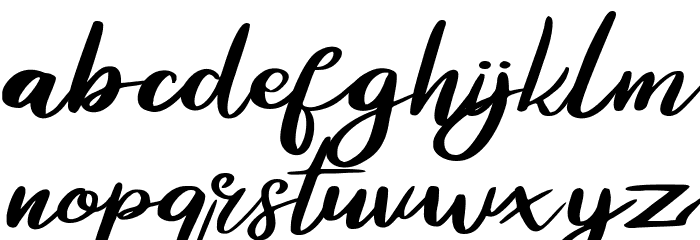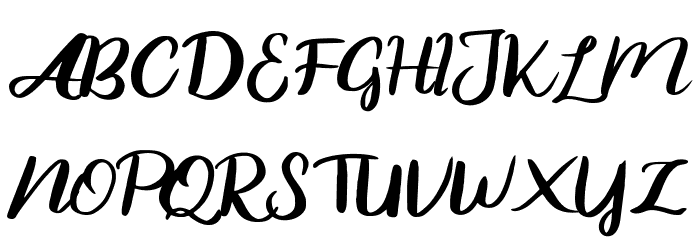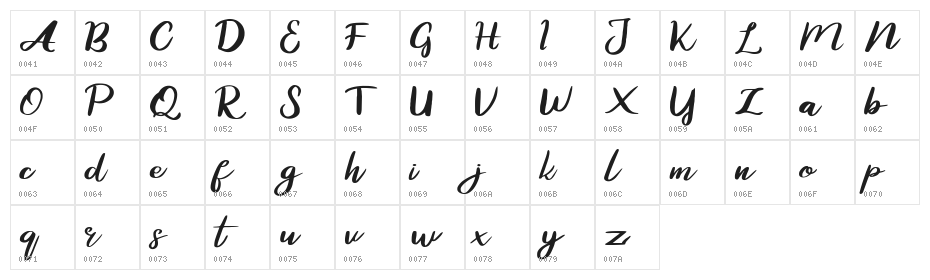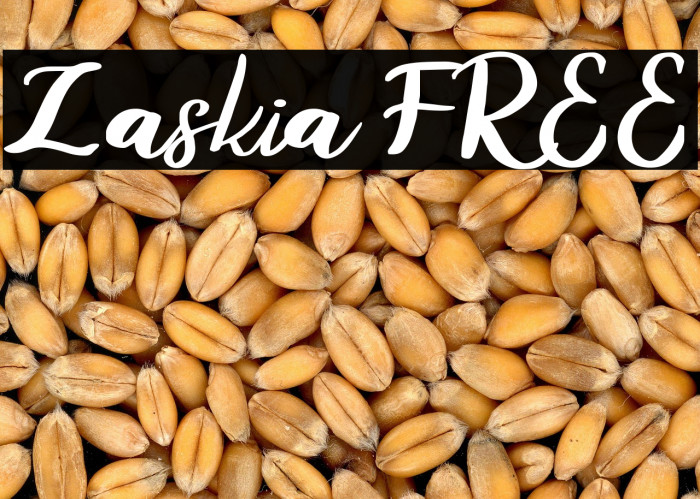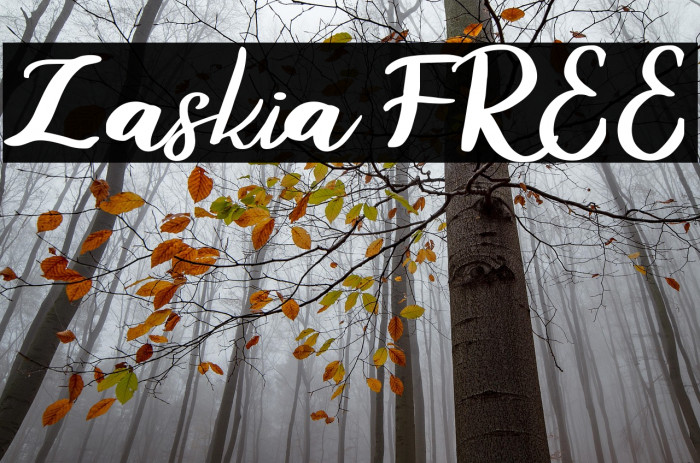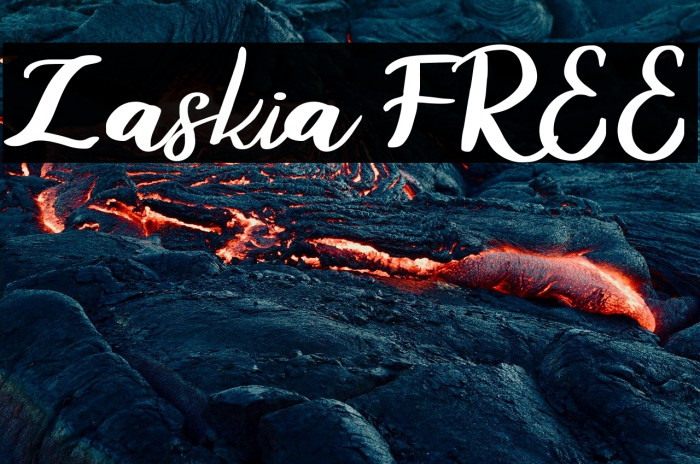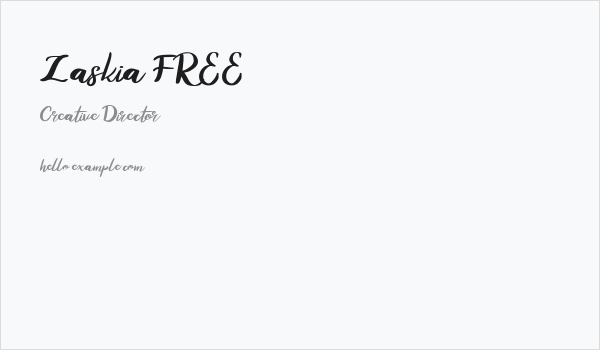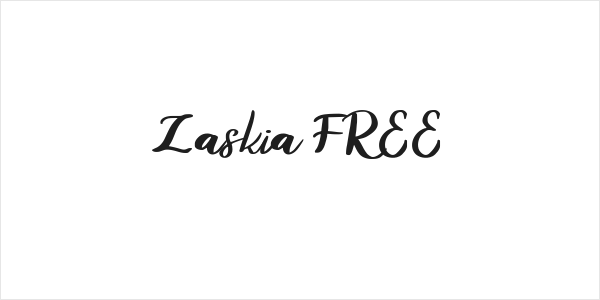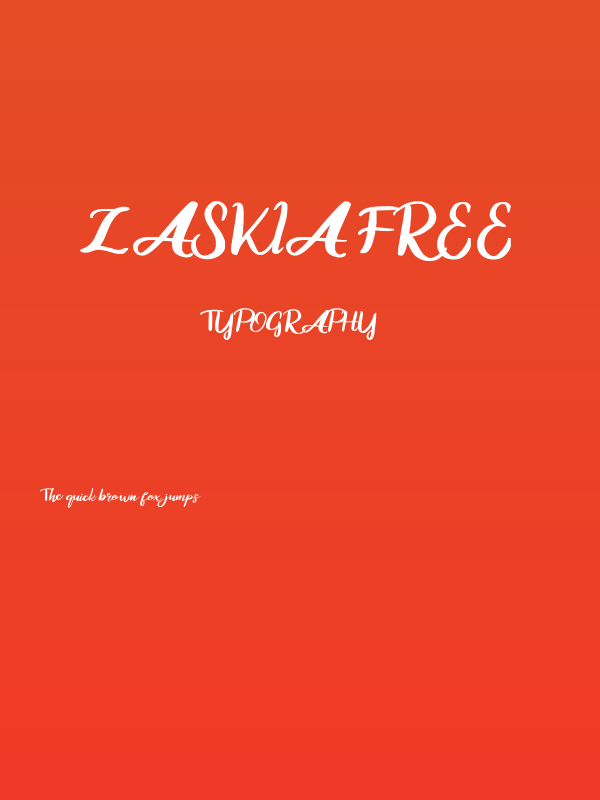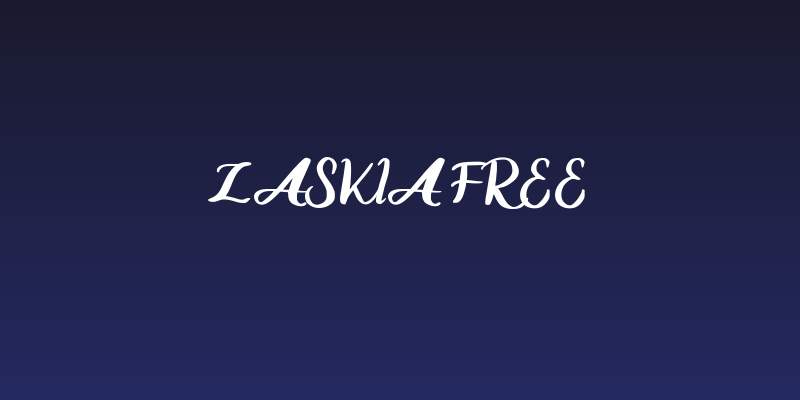
Zaskia FREE Font
This font features a dynamic and expressive script style, characterized by its flowing and interconnected letterforms. The uppercase letters exhibit a bold and confident presence, while the lowercase letters maintain a graceful and fluid appearance. The strokes are varied in thickness, adding a sense of movement and energy to the text. The overall design is reminiscent of elegant handwriting, making it suitable for projects that require a personal and artistic touch. The font's playful yet sophisticated nature makes it versatile for various creative applications.
A dynamic and expressive script font with flowing, interconnected letterforms.
- Proposed Projects: Ideal for wedding invitations, greeting cards, branding, and artistic projects requiring a personal touch.
- Use Case: Logos, Headlines, Invitations